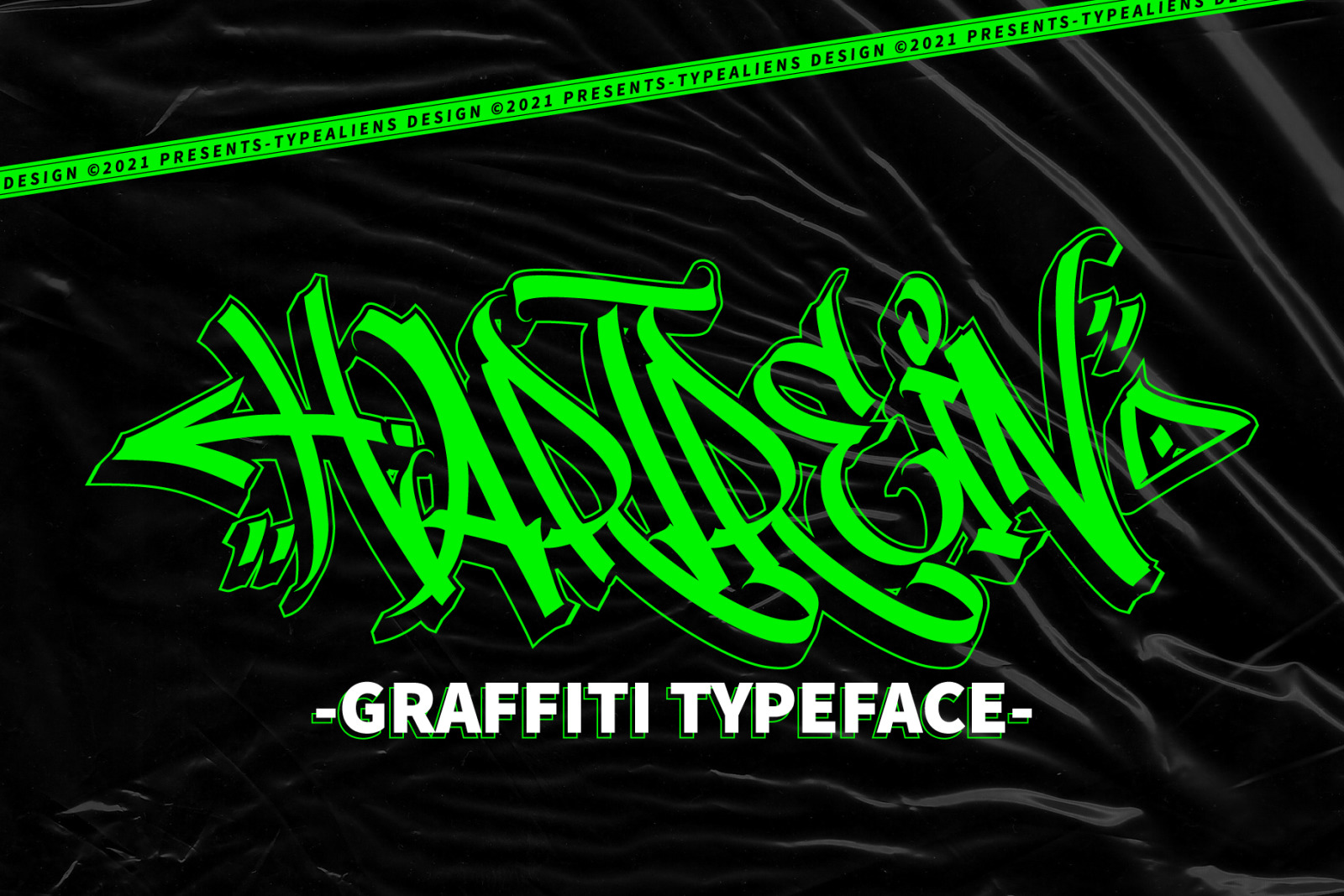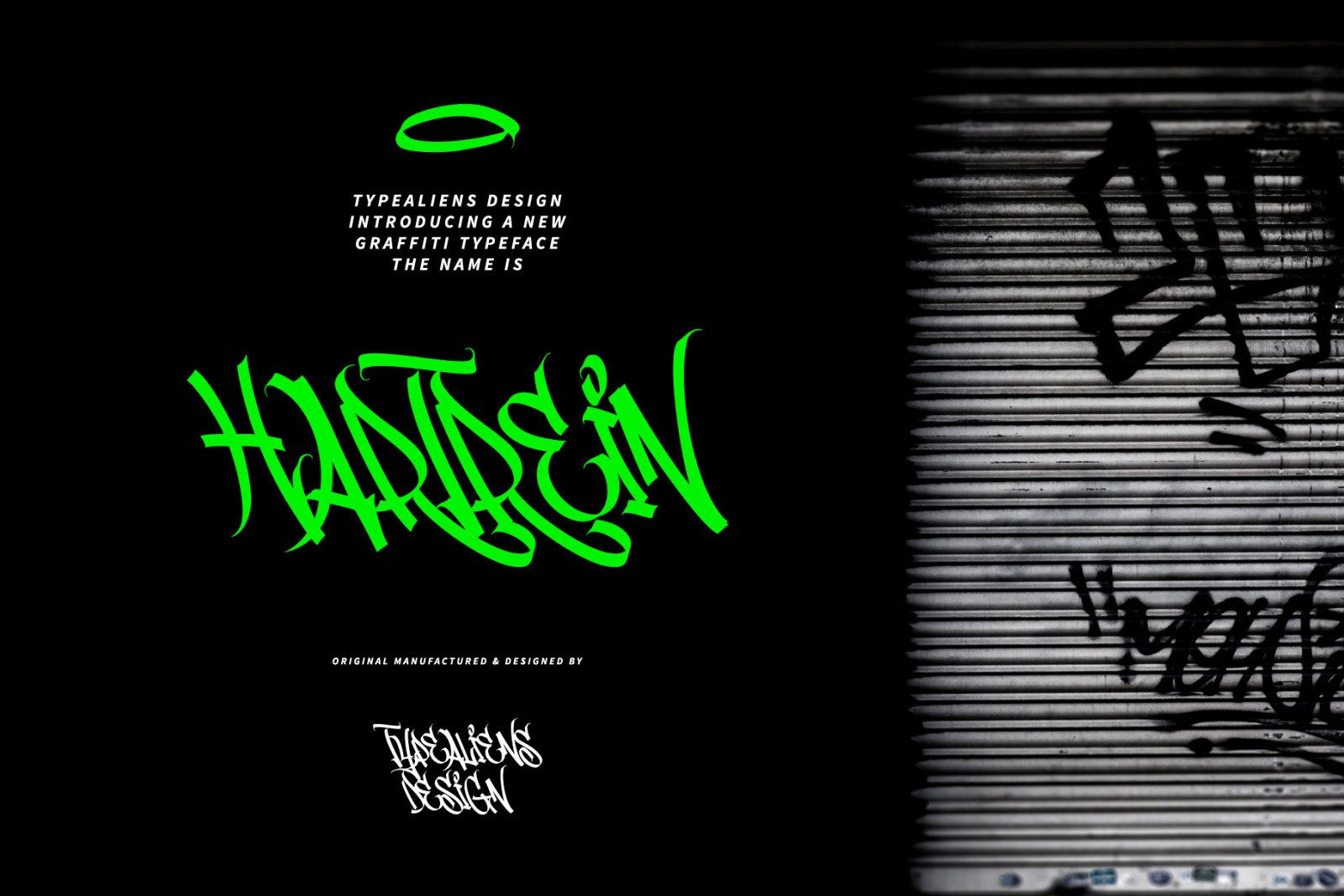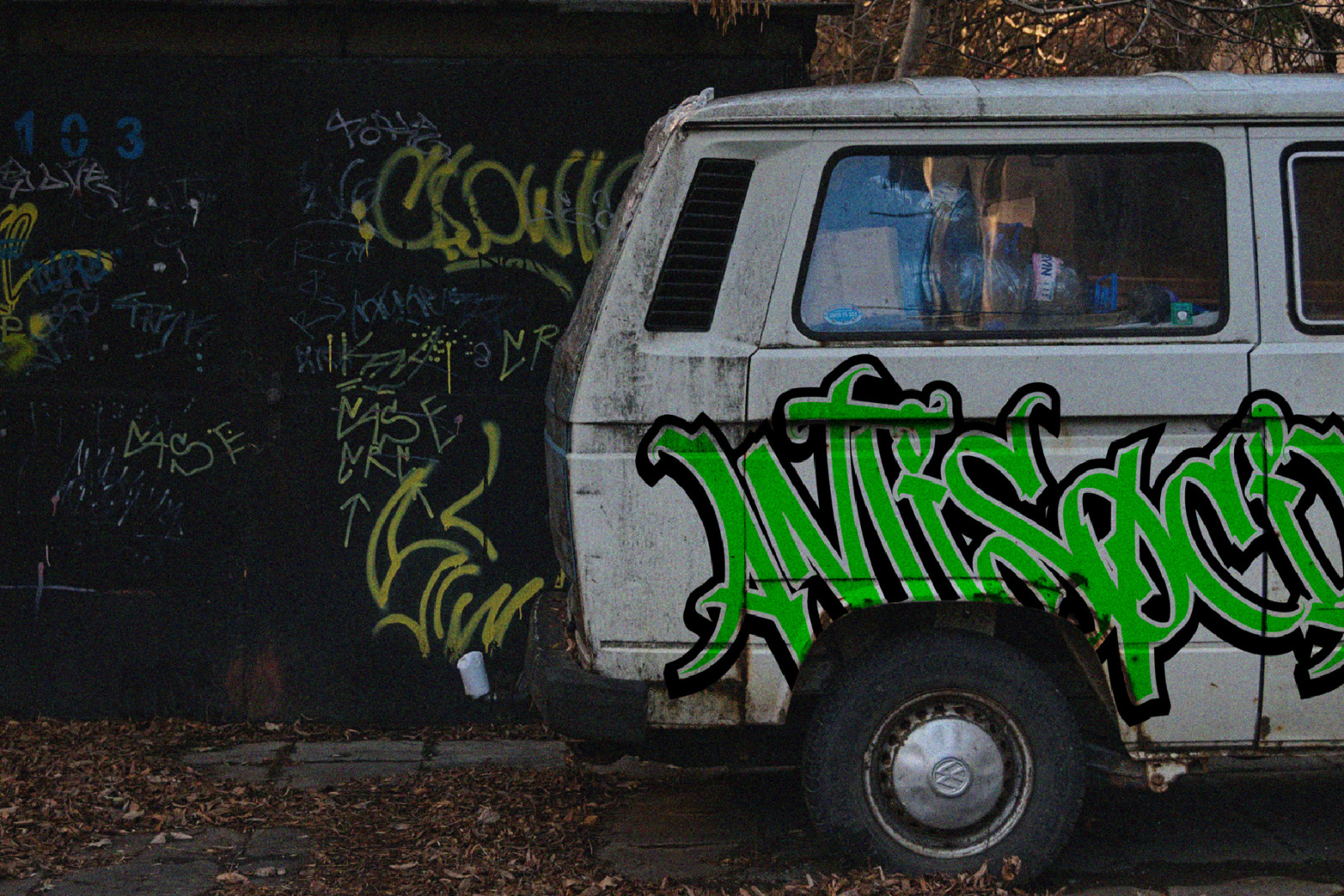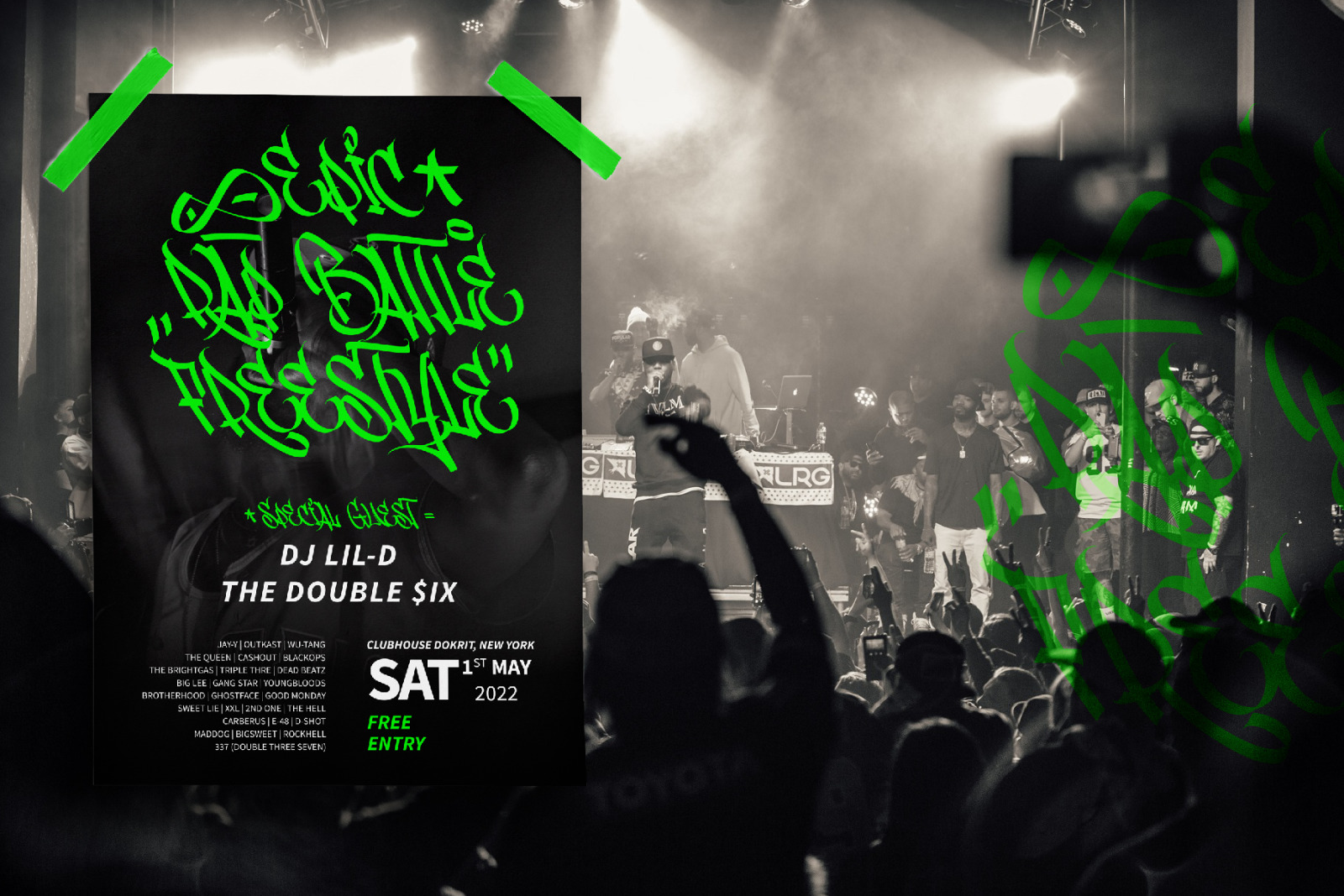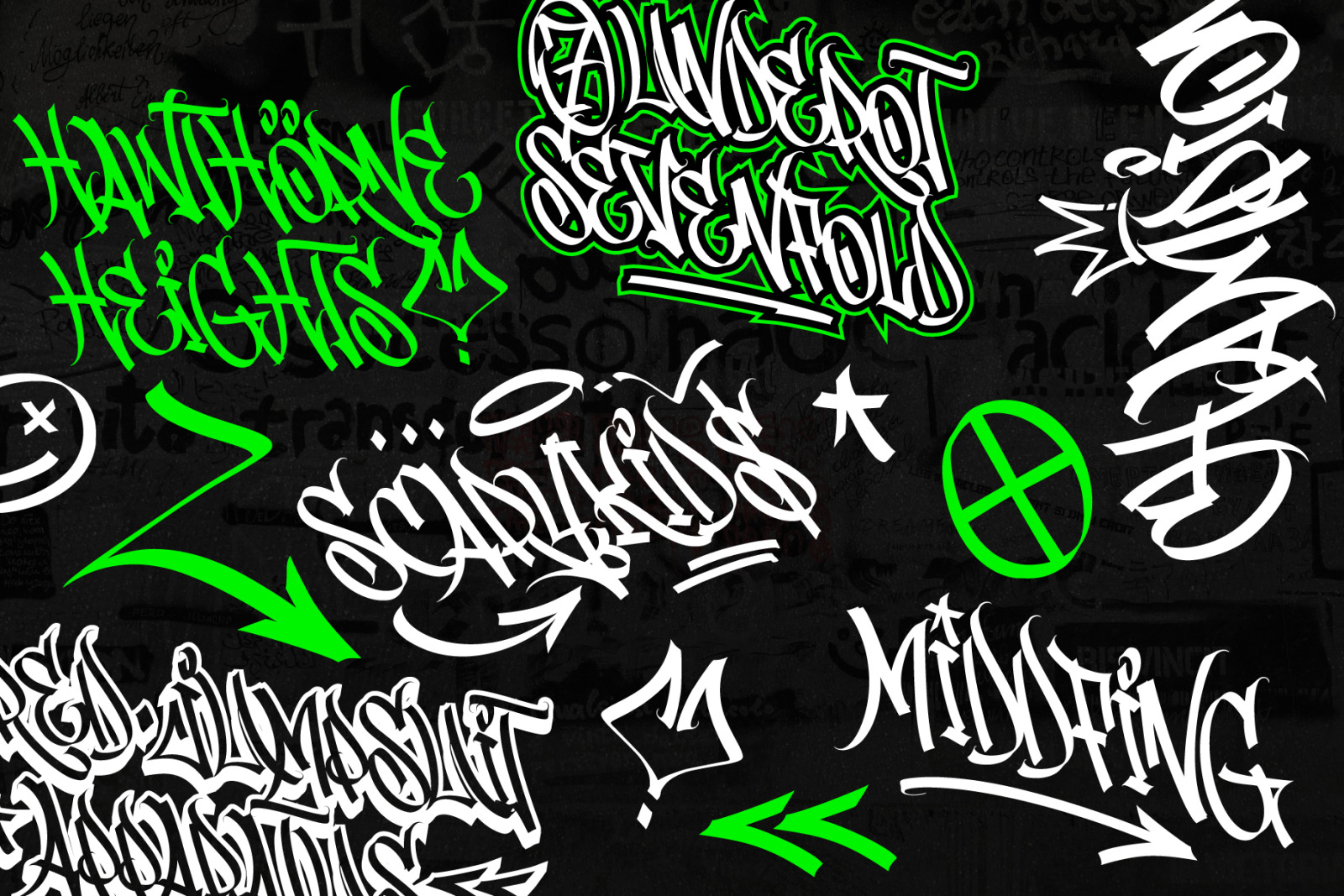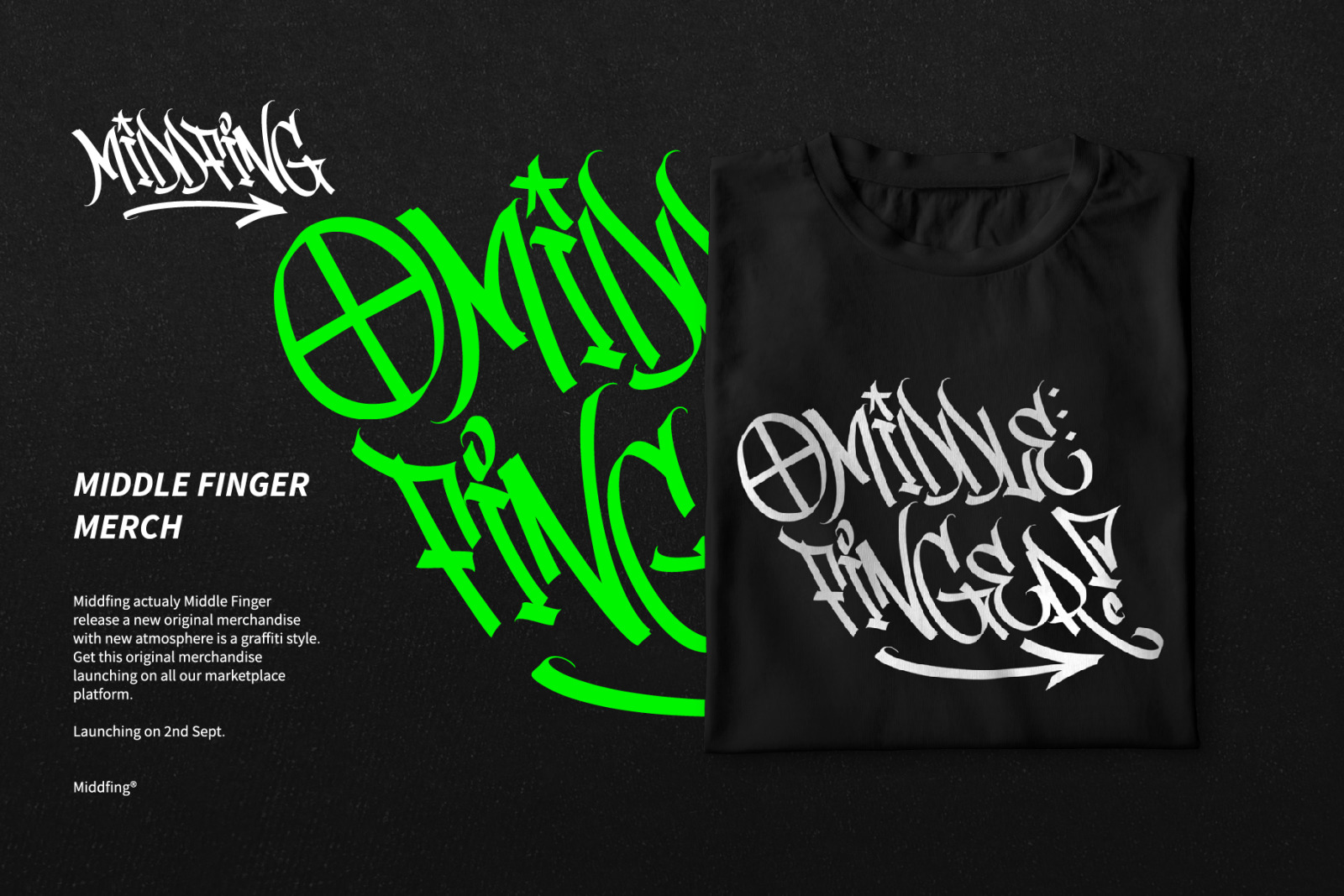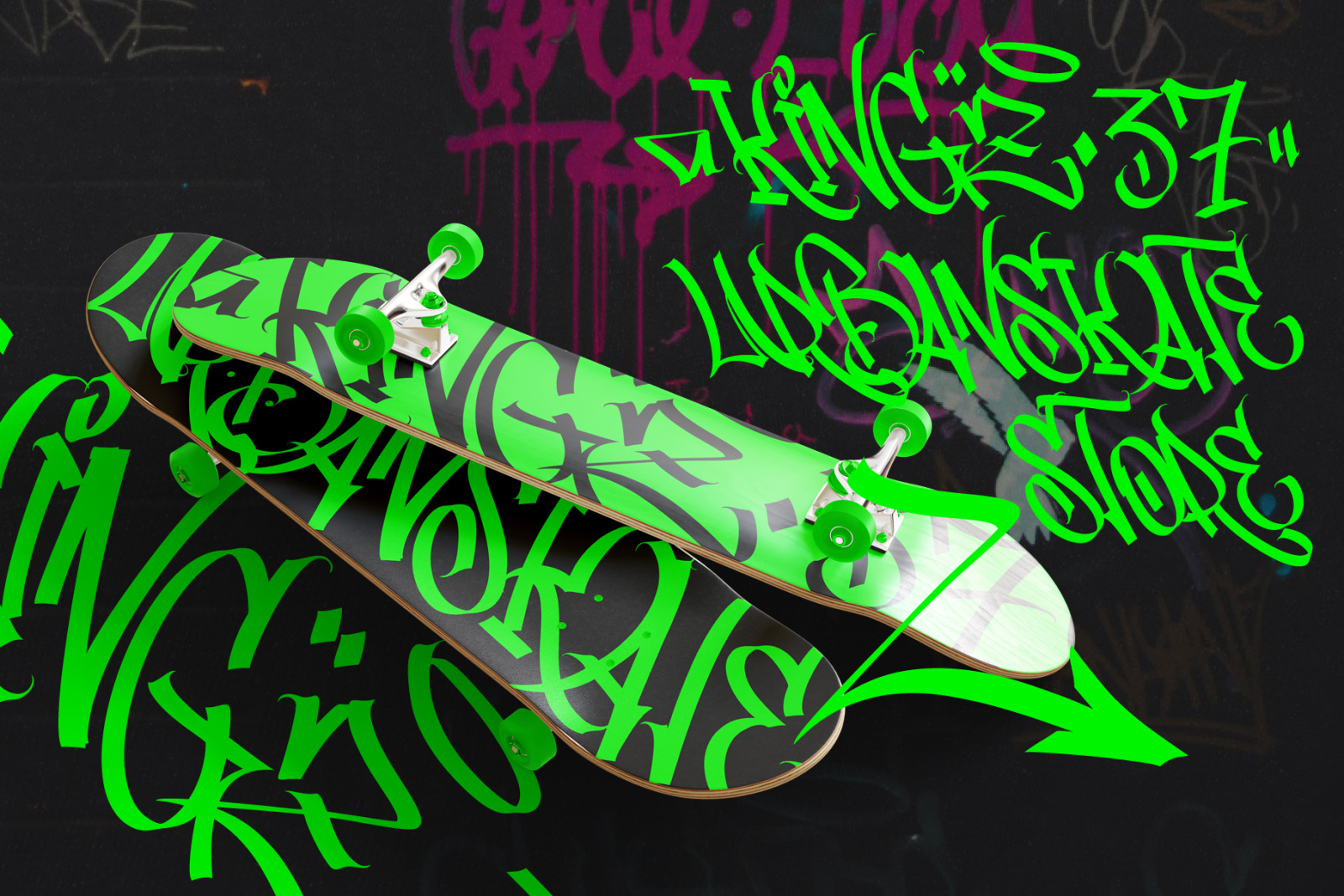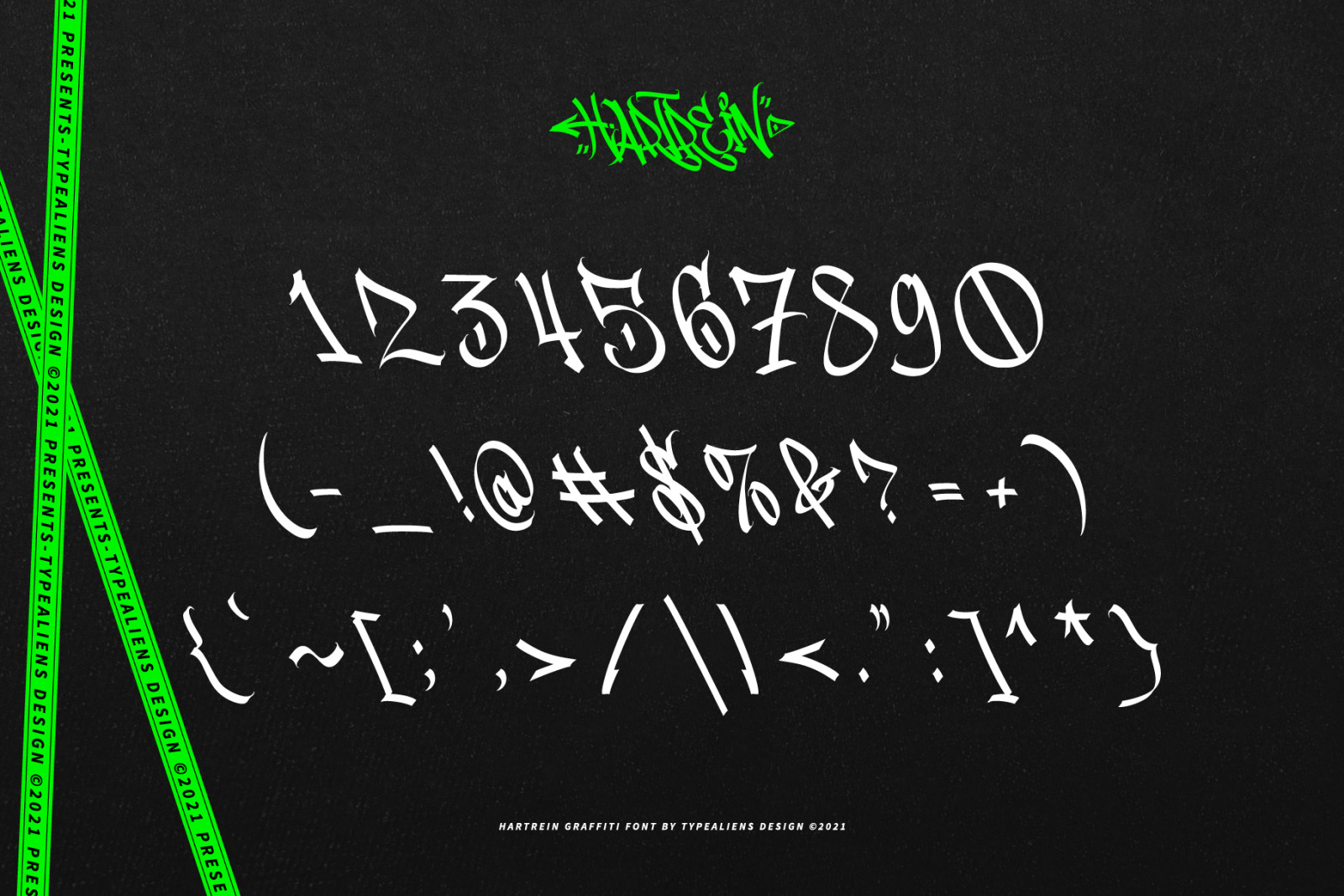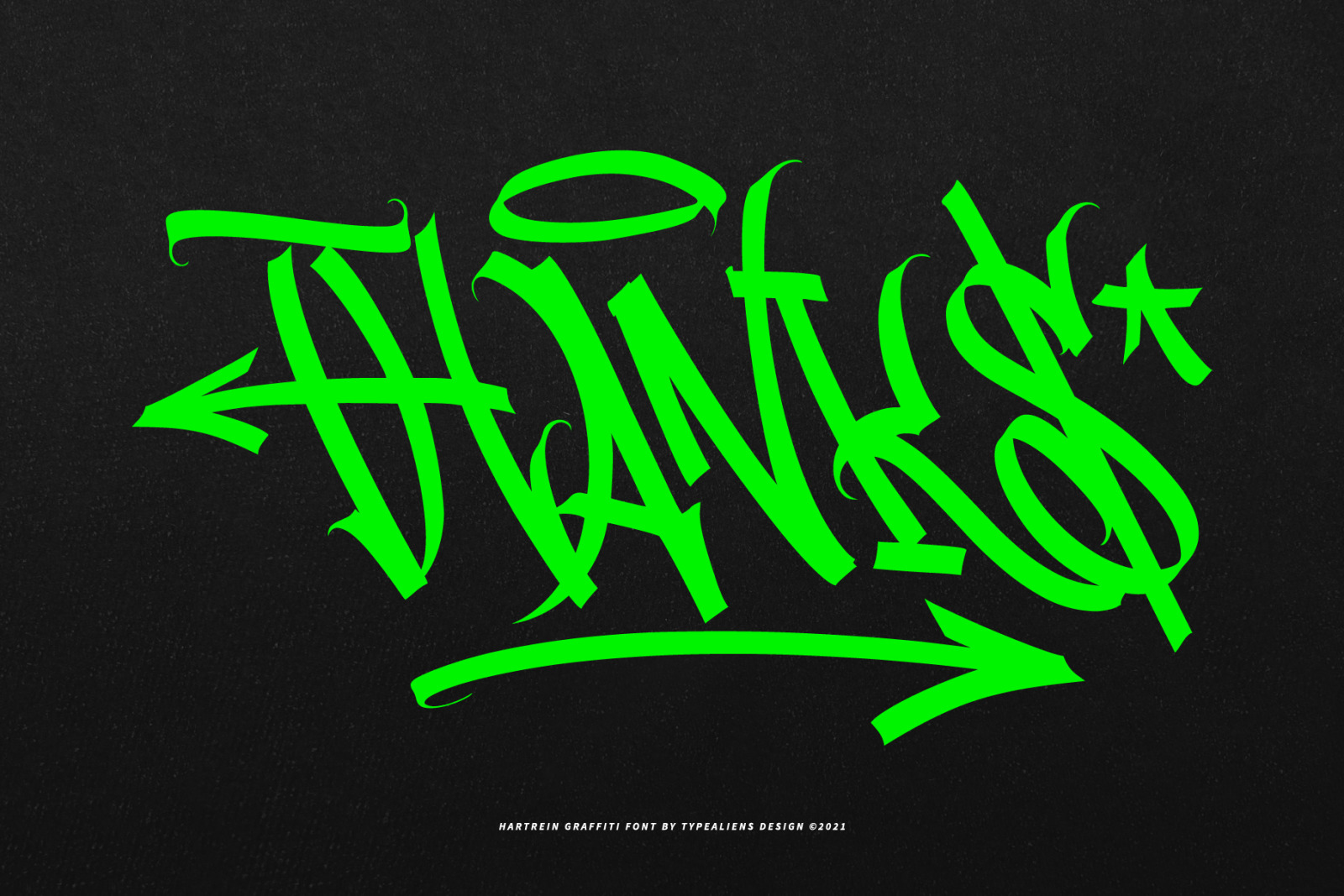
Hartrein Font
HARTREIN is a font with an urban art style, the basis is a graffiti font with a flat shape typical of a flat marker. It is suitable for modern urban art or street art designs, can also be used for spray paint brand logo designs, tagging, etc.